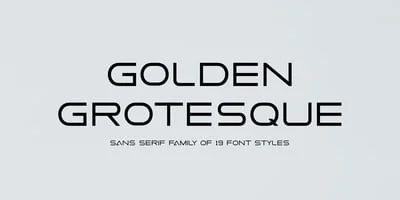
Golden Grotesque Font
Golden Grotesque Font is perfect for luxury brand identity, premium jewelry advertising, high-end financial services, exclusive awards ceremonies, upscale architectural presentations, prestigious corporate communications, elegant museum exhibitions, sophisticated wine labels, luxury hotel branding, and exclusive membership materials. This distinguished typeface brings opulent sophistication and timeless prestige to any design project requiring exceptional visual distinction and premium positioning.
Golden Grotesque Font is exciting because it masterfully combines the clean geometric principles of grotesque typography with the luxurious appeal of golden elegance. The font's refined letterforms and prestigious character communicate wealth, success, and exceptional quality, making it ideal for brands that want to establish premium market positioning and attract affluent, discerning clientele.
Golden Grotesque Font family includes multiple weights and styles: Regular, Bold, Light, Medium, Black, Thin, Condensed, Extended, Italic, and Luxury variants. Each style maintains the distinctive prestigious character while providing comprehensive typographic solutions for high-end branding systems and exclusive communications requiring both geometric clarity and opulent sophistication.
Whether you're designing for luxury corporations, premium services, or exclusive events, Golden Grotesque Font delivers the prestigious excellence that distinguishes elite brands from ordinary competitors. This exceptional typeface combines classical grotesque heritage with contemporary luxury aesthetics, making it invaluable for projects demanding both visual supremacy and market leadership. The font's golden presence ensures commanding impact in premium environments.